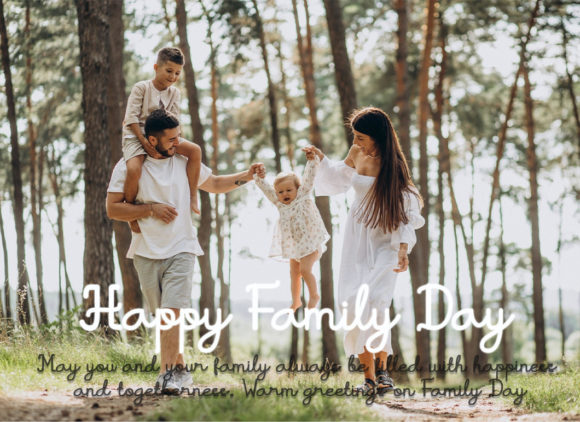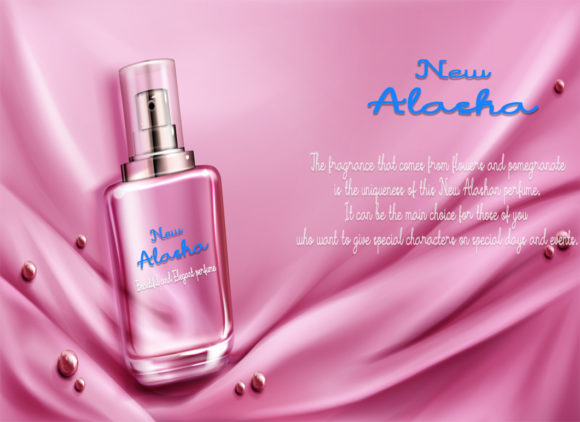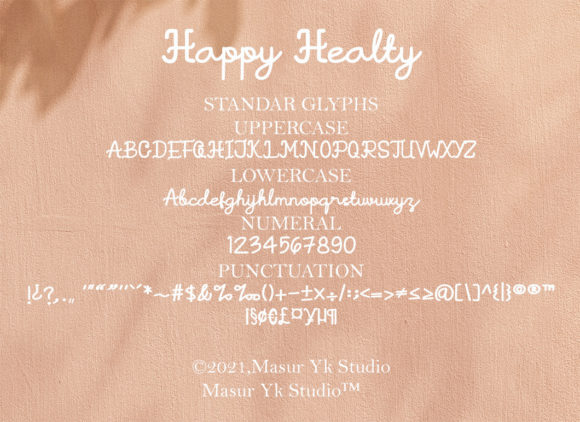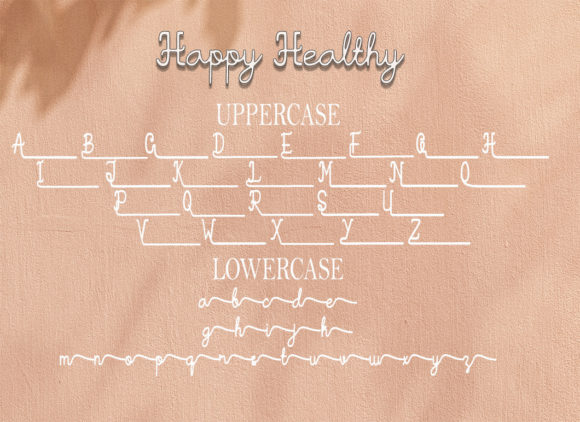
Introducing Happy Healthy Font: A Lovely Script Font for Your Creative Projects
Are you a designer or crafter looking for a font that can add a touch of playfulness and charm to your creative projects? Look no further than Happy Healthy Font, a lovely script font that features charming, playful characters that seem to dance along the baseline. In this article, we’ll take a closer look at the Happy Healthy Font, its features, and how you can use it to elevate your designs.
What is Happy Healthy Font?
Happy Healthy Font is a beautiful script font that is perfect for a variety of creative projects, from invitations and greeting cards to branding and advertising materials. This font is designed to be highly legible and easy to read, making it ideal for use in both digital and print applications.
One of the standout features of Happy Healthy Font is its charming, playful characters that seem to dance along the baseline. This gives the font a lively, energetic feel that is sure to capture the attention of your audience. Whether you’re looking to create a fun and playful design or a more elegant and sophisticated one, Happy Healthy Font is a great choice.
PUA Encoding for Easy Access to Glyphs and Swashes
Happy Healthy Font is PUA (Private Use Area) encoded, which means that you can access all glyphs and swashes with ease. PUA encoding allows designers to access a wide range of glyphs and swashes that can be used to add variety and interest to their designs. With Happy Healthy Font, you can easily access these glyphs and swashes using a program like Adobe Illustrator or Photoshop.
This feature makes Happy Healthy Font incredibly versatile and easy to use. Whether you’re looking to add a few extra flourishes to your design or create a more complex and intricate layout, the PUA encoding of Happy Healthy Font makes it easy to do so.
Features of Happy Healthy Font
So what are some of the key features of Happy Healthy Font? Here are just a few of the things that make this font so special:
- Charming, playful characters: The characters in Happy Healthy Font are designed to be charming and playful, with a lively, energetic feel that is sure to capture the attention of your audience.
- PUA encoding: With PUA encoding, you can easily access all glyphs and swashes, making it easy to add variety and interest to your designs.
- Highly legible: Happy Healthy Font is designed to be highly legible, making it easy to read in both digital and print applications.
- Versatile: Happy Healthy Font is a versatile font that can be used in a wide range of creative projects, from invitations and greeting cards to branding and advertising materials.
How to Use Happy Healthy Font in Your Designs
So how can you use Happy Healthy Font in your designs? Here are a few ideas to get you started:
- Create a playful invitation: Use Happy Healthy Font to create a playful and eye-catching invitation for a birthday party, wedding, or other special event.
- Add a personal touch to your branding: Use Happy Healthy Font to add a personal touch to your branding materials, such as business cards, letterheads, and packaging.
- Create a fun and playful advertisement: Use Happy Healthy Font to create a fun and playful advertisement for a product or service.
- Make a beautiful greeting card: Use Happy Healthy Font to create a beautiful and heartfelt greeting card for a friend or loved one.
| Author | Masur YK |
In conclusion, Happy Healthy Font is a lovely script font that is perfect for designers and crafters looking to add a touch of playfulness and charm to their creative projects. With its charming, playful characters, PUA encoding, and high legibility, Happy Healthy Font is a versatile font that can be used in a wide range of applications. Whether you’re looking to create a fun and playful design or a more elegant and sophisticated one, Happy Healthy Font is a great choice.